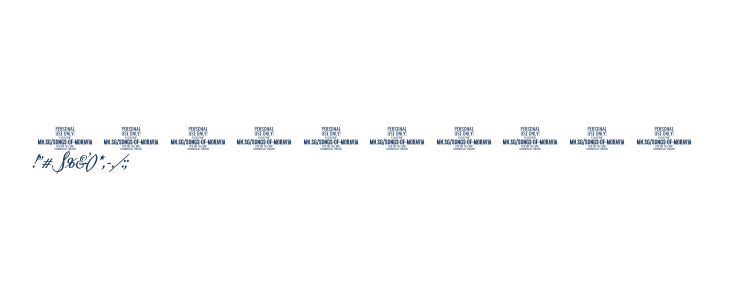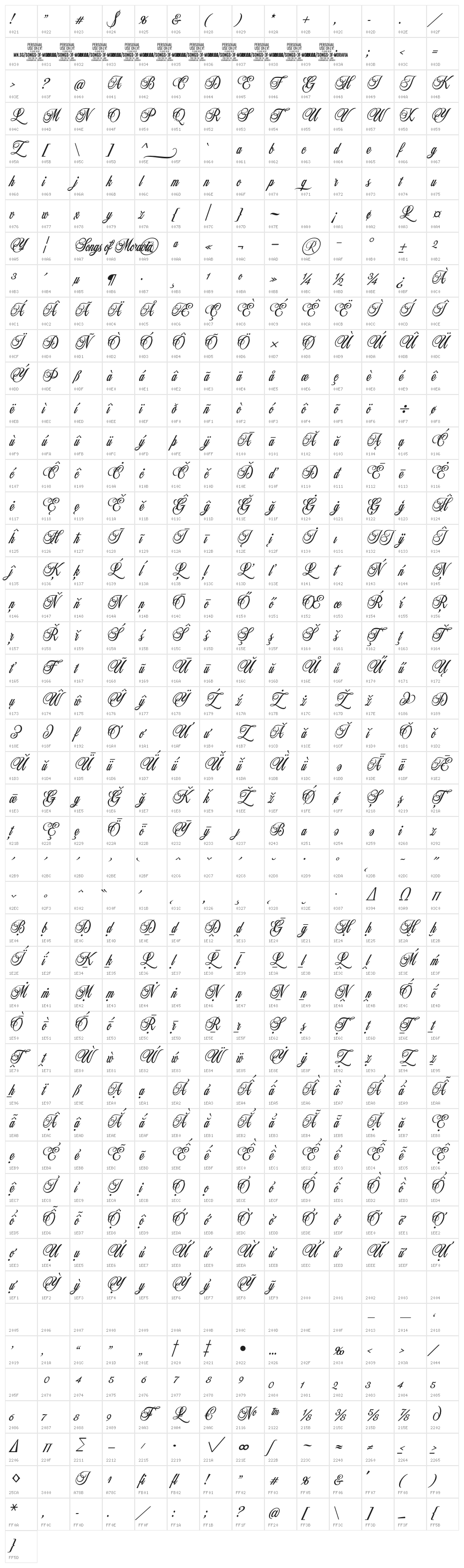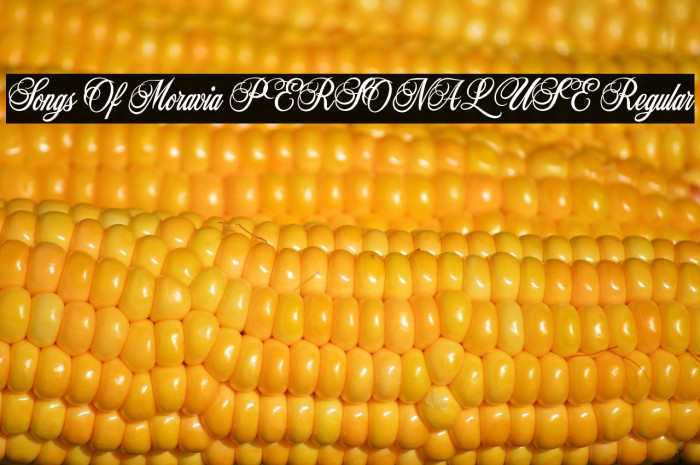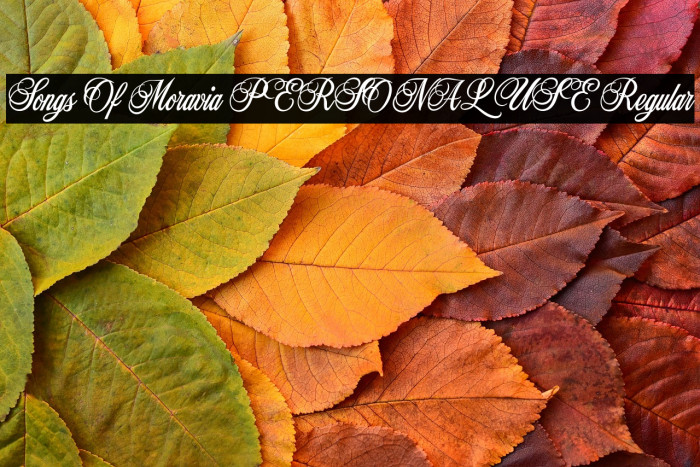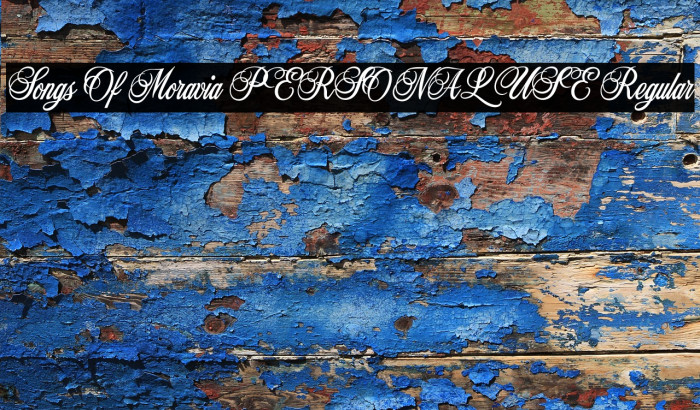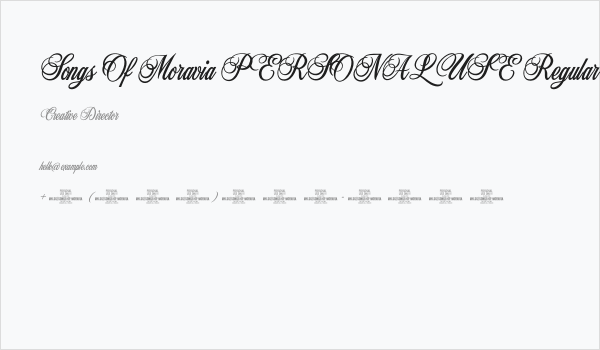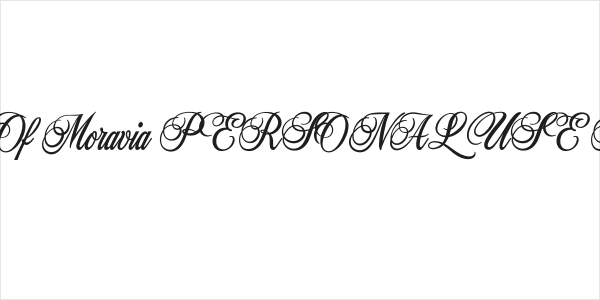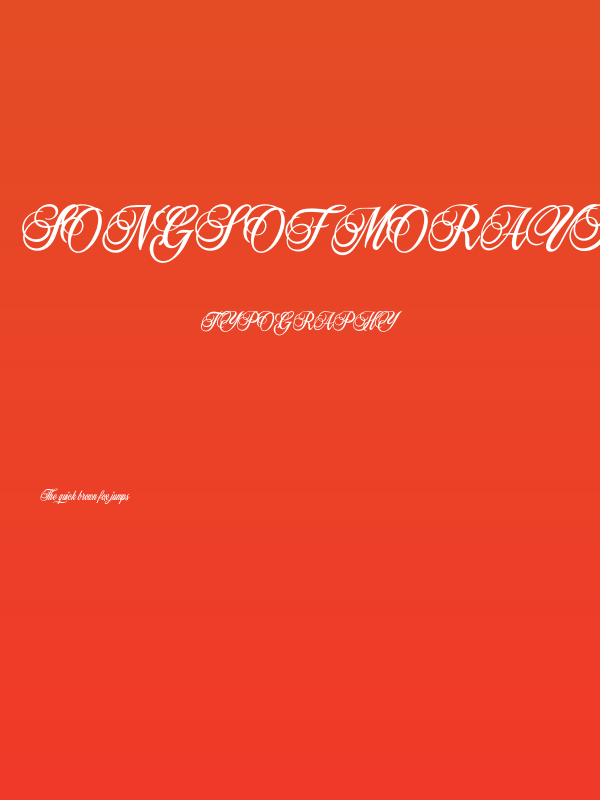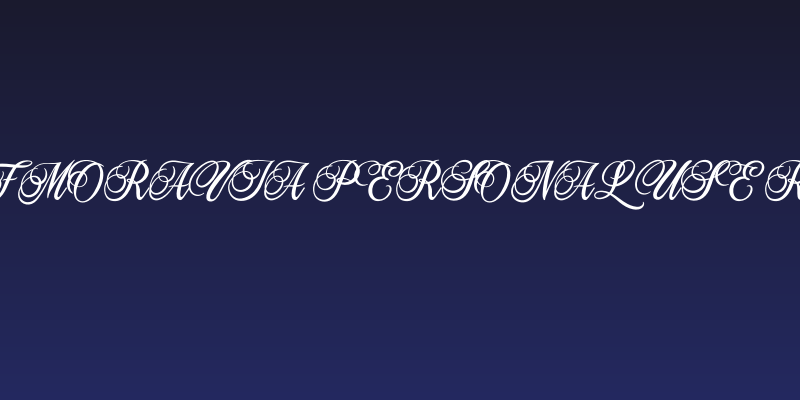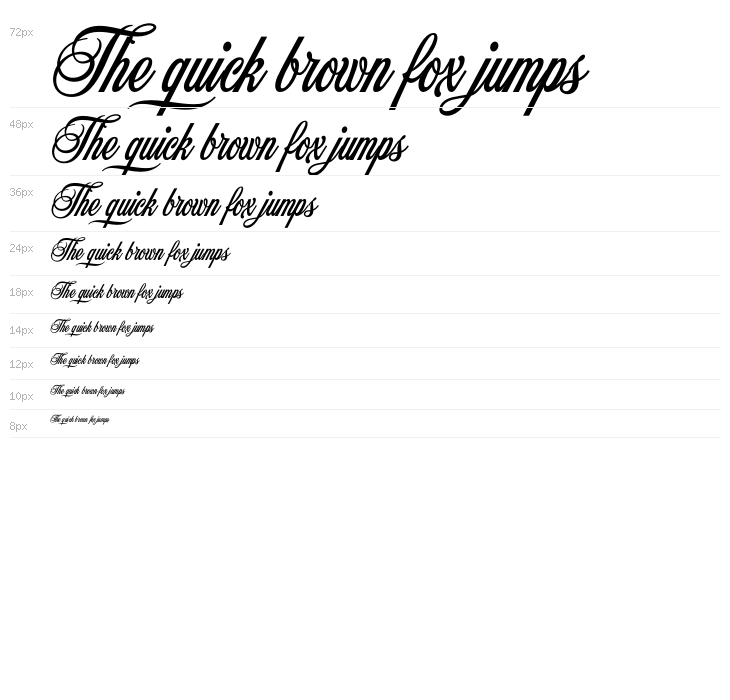
Songs Of Moravia PERSONAL USE Regular Font
Songs Of Moravia PERSONAL USE Regular Description
This font features an elegant and flowing script style, characterized by its intricate and ornate letterforms. The uppercase letters exhibit a high level of flourish and decorative elements, making them stand out with a sense of sophistication and grace. The lowercase letters maintain a smooth and connected appearance, enhancing the overall fluidity of the design. The numerals and special characters are crafted with the same attention to detail, ensuring consistency throughout the font. This typeface is ideal for projects that require a touch of elegance and refinement, such as invitations, branding, and decorative headlines.